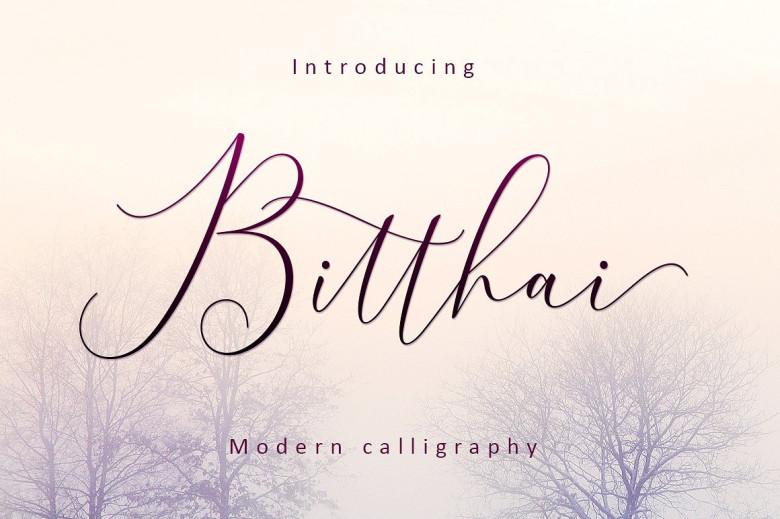
Bitthai Script Font
Hello good people! Continues to be a design of Amarlettering. A modern calligraphy font. Introducing Bitthai. Bitthai Script come with 530+ glyphs. The alternative characters were divided into several Open Type features such as Swash, Stylistic Sets, Stylistic Alternates, Contextual Alternates.